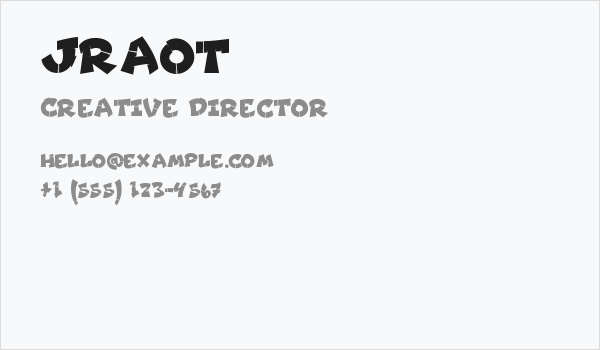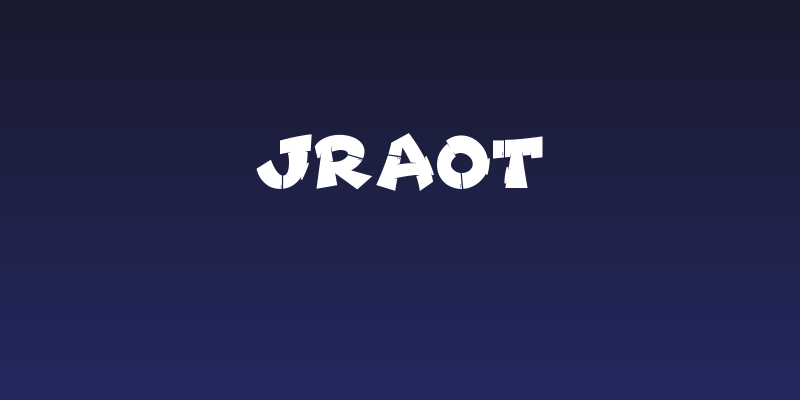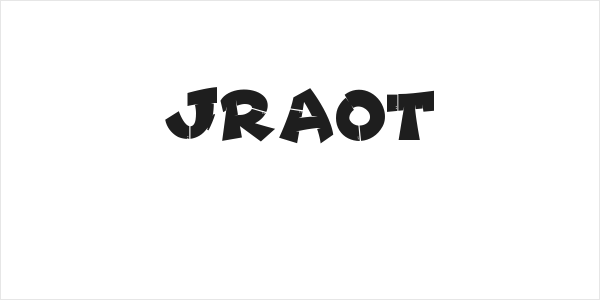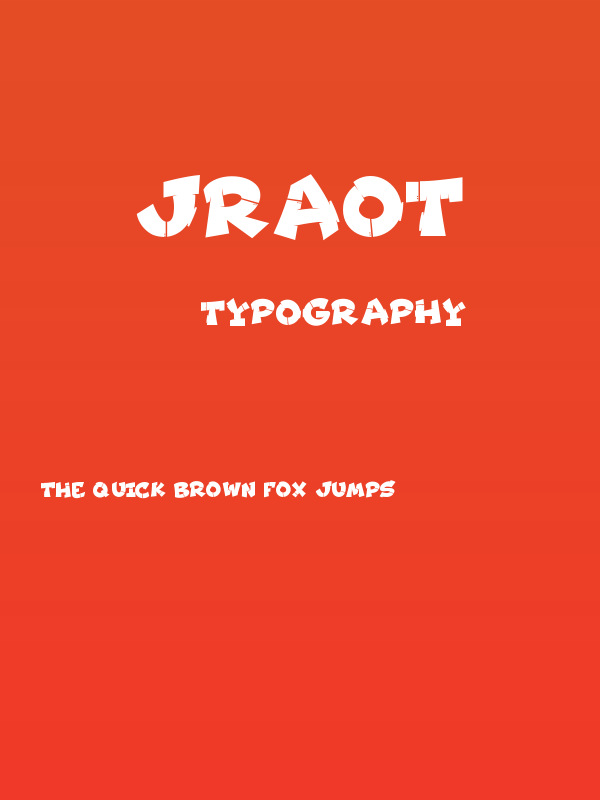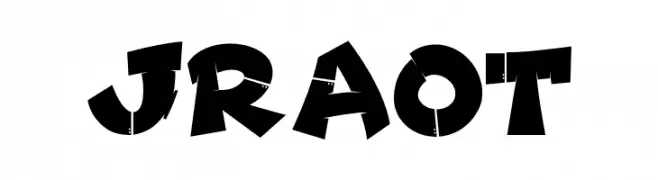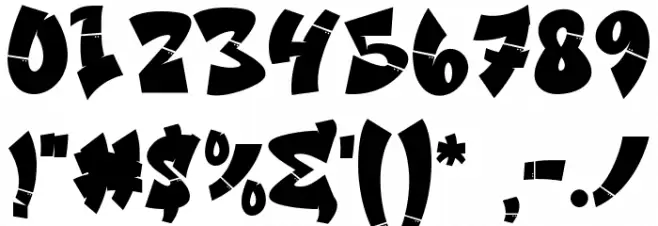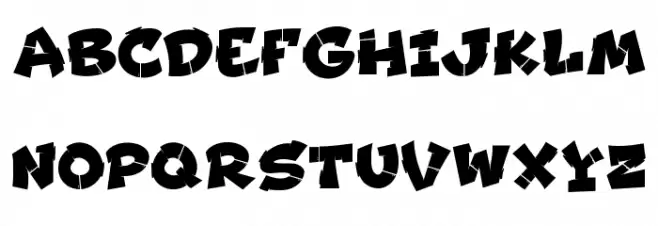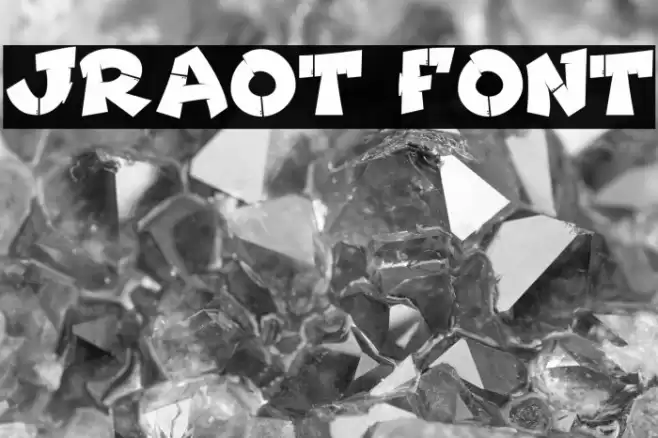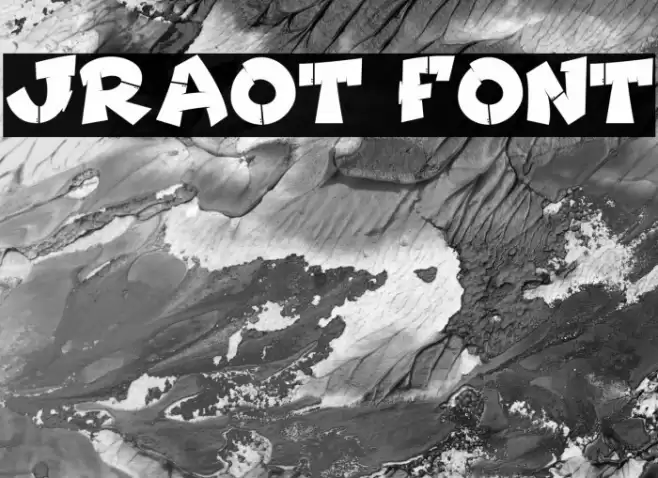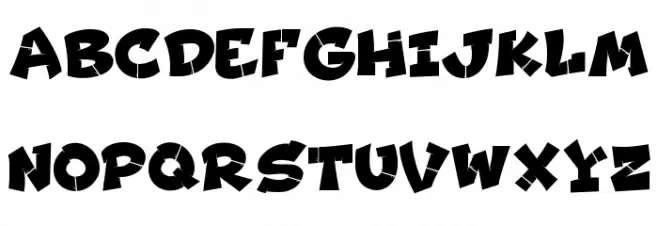
Jraot Font
Jraot Description
Bold, playful, and chunky display font with irregular, jagged edges and a cartoonish style.
| Overall Style | Playful, Cartoonish, Bold |
| Use Case | Headlines, Logos, Posters, Children's products |